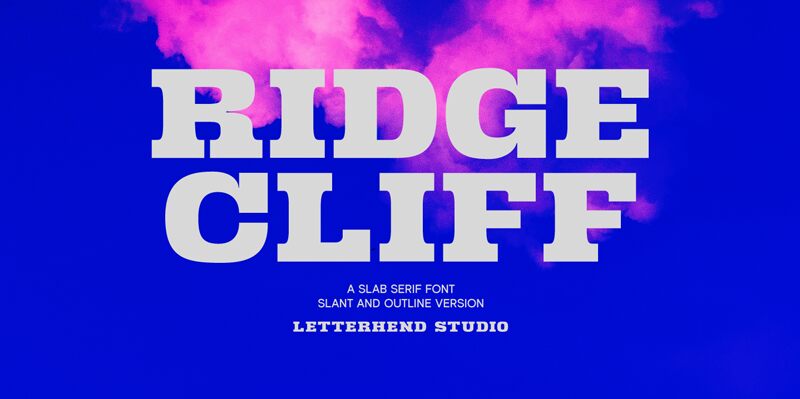
Ridge Cliff Outline, a captivating creation by Letterhend Studio, is an extra-bold outlined serif font that exudes confidence and sophistication. Its expanded width adds a touch of modernity to its classical charm. This font is perfect for branding projects that demand a balance between traditional elegance and contemporary flair. Whether it's designing logos for luxury fashion labels, crafting eye-catching signage for high-end boutiques, or creating sleek packaging for upscale products, Ridge Cliff Outline will effortlessly elevate any project with its refined aesthetic.